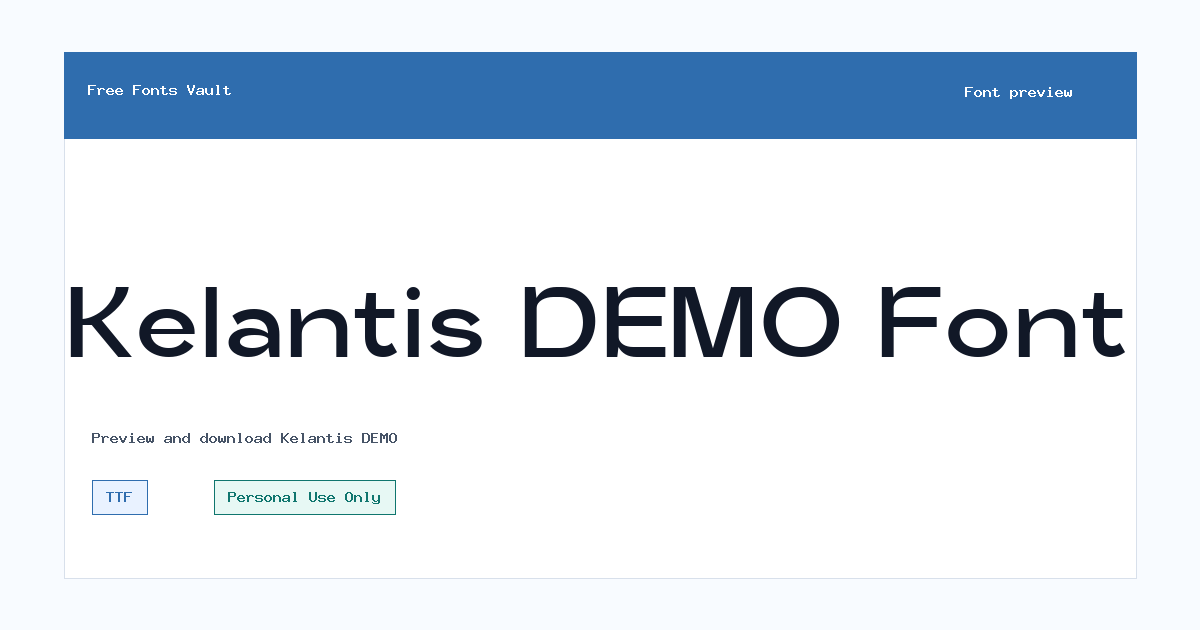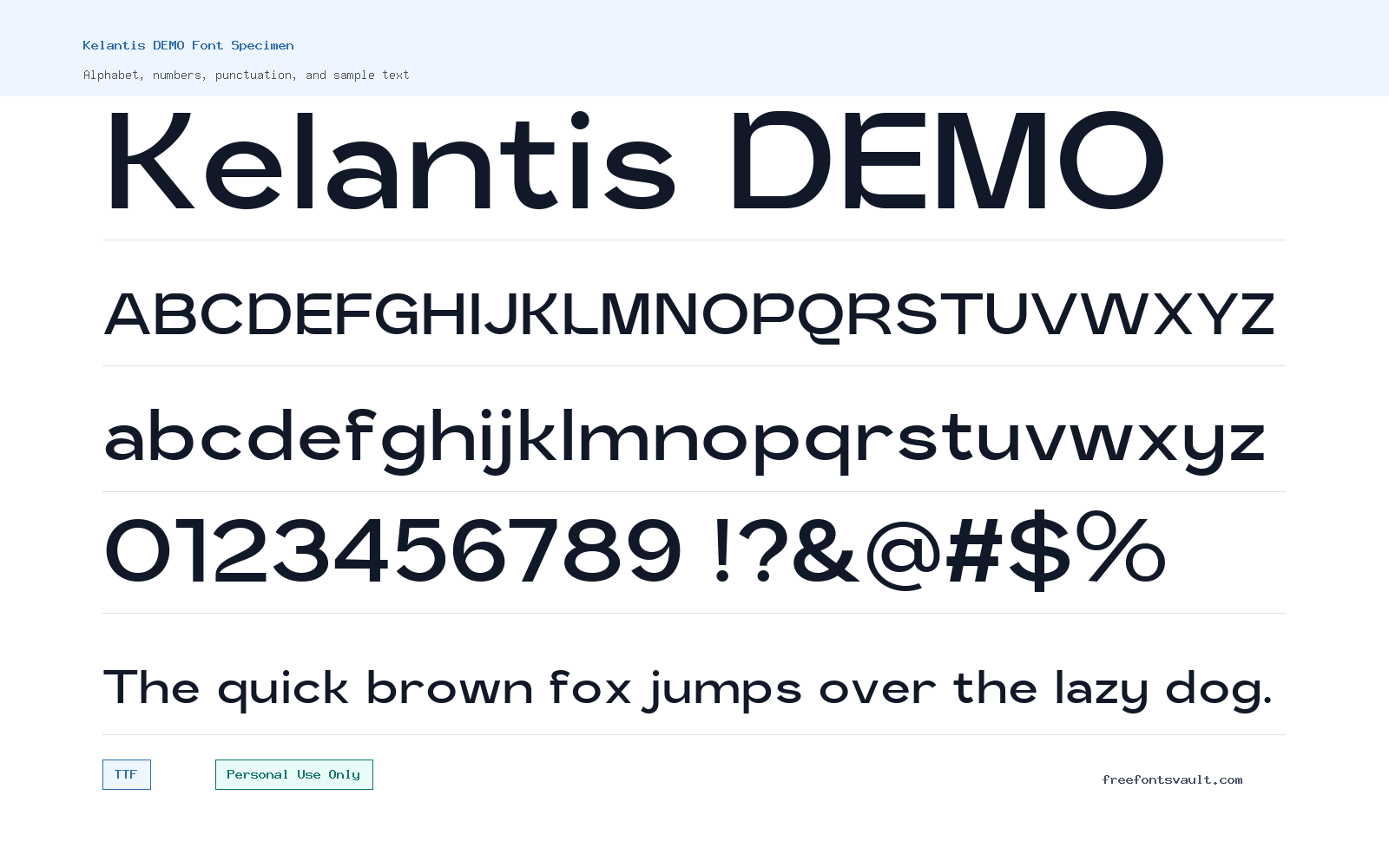
Kelantis DEMO
Kelantis DEMO font.
Kelantis DEMO is a personal-use font with a clean regular style that works best when you want to test a polished display idea before choosing a full license.
About Kelantis DEMO
Kelantis DEMO is listed as a regular TTF font from Say Studio. The name suggests a demo release, so it is best treated as a preview or trial version rather than a complete commercial type family. With one regular style available, it is easy to install, test, and compare in common design apps. Use the preview text to check how the letters behave in your own words, especially if your project needs a specific title, brand name, poster line, or social graphic. A single-weight font can still be useful, but it asks you to be more careful with size, spacing, contrast, and layout.
For visitors, the most practical way to judge Kelantis DEMO is to type the exact words you plan to use. Try it in short headings, logo drafts, packaging mockups, invitation titles, website hero text, and poster compositions. Look closely at uppercase and lowercase balance, punctuation, number shapes, and how the font handles tight letter spacing. If the text starts to feel crowded, give it more tracking or use it at a larger size. Since only a regular 400-style TTF is listed, pair it with a neutral sans serif or readable serif for body copy instead of forcing the same font into long paragraphs.
- Single-style setup that keeps testing simple, especially for titles, logo concepts, posters, and web mockups.
- Best suited to short display text where spacing, scale, and contrast can be adjusted by hand.
- Logo concepts and brand-name mockups for personal exploration.
- Poster titles, event graphics, and short display lines.
- Website hero headings and landing page mockups.
- Social media graphics, mood boards, and presentation visuals.
- Typography tests before deciding whether to seek a commercial license.
Is Kelantis DEMO good for body text?
It is better to test it as a display font for short text. Since only one regular style is listed, use a separate readable font for long paragraphs.